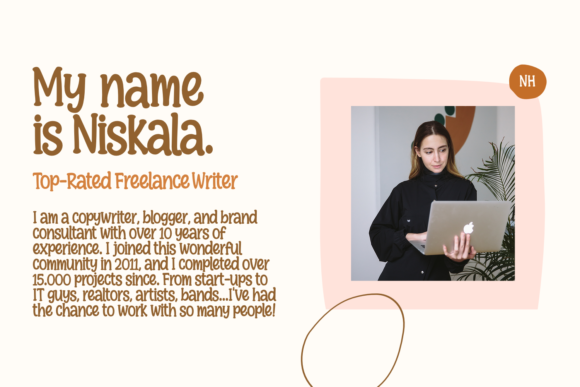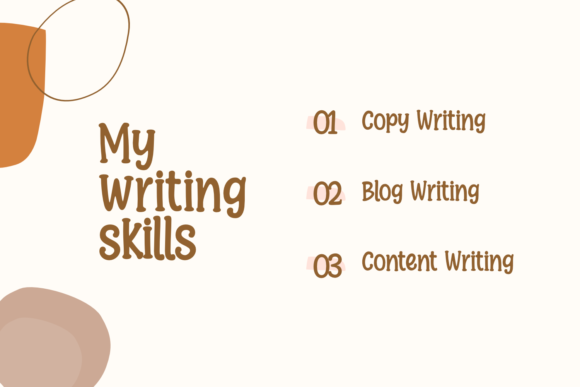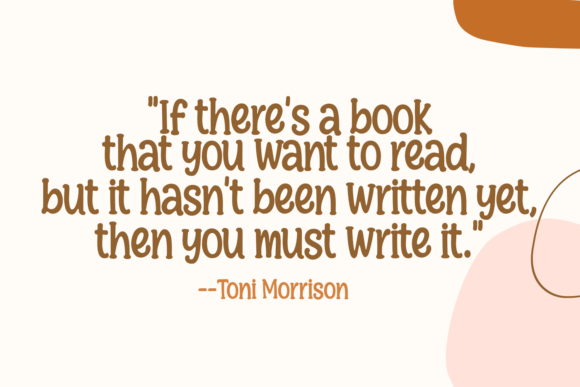
Introduction to Rickety Stairs Font
You know that moment when you’re working on a creative project and you’re stuck on the perfect font to give it that extra oomph? The one that will make your design stand out and capture the attention of your audience? For designers, finding the right font can be a game-changer. That’s where the Rickety Stairs Font comes in – a delightful, handwritten font that’s sure to add a touch of whimsy to any project.
Whether you’re working on a design project that requires a free download font with a transparent background or a high-quality font for a commercial design, the Rickety Stairs Font is an adaptable and versatile resource that’s sure to meet your needs. Its fun and friendly vibe makes it perfect for a wide range of creative projects, from children’s books to greeting cards and beyond.
Key Features of Rickety Stairs Font
- Unique, hand-drawn design with a distressed, vintage aesthetic.
- Available in a single weight, perfect for titles, headings, and other design elements that require a bold, eye-catching font.
- Designed to add a touch of whimsy and personality to any creative project, from branding and marketing materials to editorial and publishing projects.
Honest Review: Rickety Stairs Font
I recently stumbled upon the Rickety Stairs Font, and I must say it’s been a game-changer for my creative projects. The font is perfect for designers who need a unique, quirky touch to their designs.
- ✨ The font is perfect for creative projects that require a touch of whimsy and personality.
- ⚠️ The font may not be suitable for corporate or professional designs, as it can come across as too playful.
- ⚠️ The font’s unique style may not appeal to everyone, and some designers may find it too quirky.
Overall, I’m impressed with the Rickety Stairs Font. Its high quality and versatility make it a valuable addition to any designer’s toolkit. Whether you’re working on a personal or commercial project, this font is sure to add a touch of creativity and personality to your designs.
Getting the Most Out of Rickety Stairs Font
To get the most out of this design resource, experiment with layering the font with other design elements, such as textures or graphics. You can also use it in combination with other fonts to create a unique and eye-catching look.
The Rickety Stairs Font is perfect for creative projects that require a vintage or distressed look, such as:
- Photography
- Advertising
Alternatives to Rickety Stairs Font
The Great Vibes Font is a beautiful, handwritten font that can add a personal touch to your creative project. It’s perfect for designs that require a free-spirited and whimsical feel. Great Vibes Font can be used on a transparent background to create a stunning visual effect.
Compared to Rickety Stairs Font, Great Vibes Font has a more elegant and refined feel, making it suitable for a wider range of designs, from wedding invitations to fashion magazines.
The Alex Brush Font is a high-quality, elegant script font that can add sophistication to your design. It’s ideal for designs that require a touch of luxury and refinement, such as high-end fashion brands or luxury hotels. Alex Brush Font can be downloaded for free and used on a transparent background.
Compared to Rickety Stairs Font, Alex Brush Font has a more polished and refined feel, making it suitable for designs that require a high level of professionalism and sophistication.